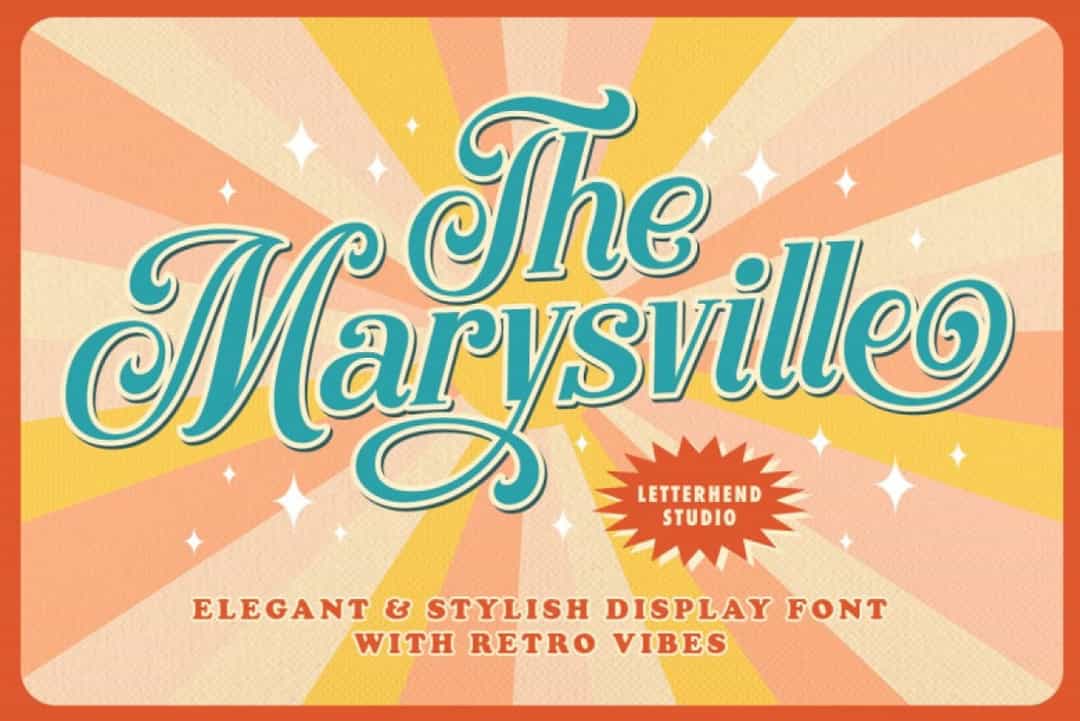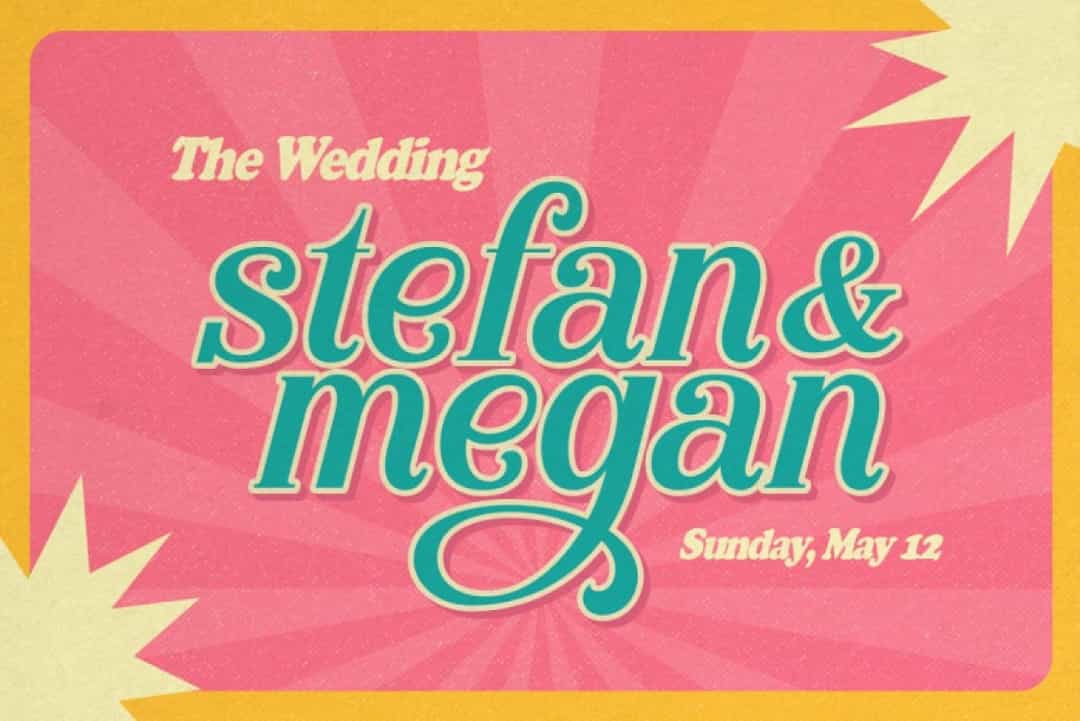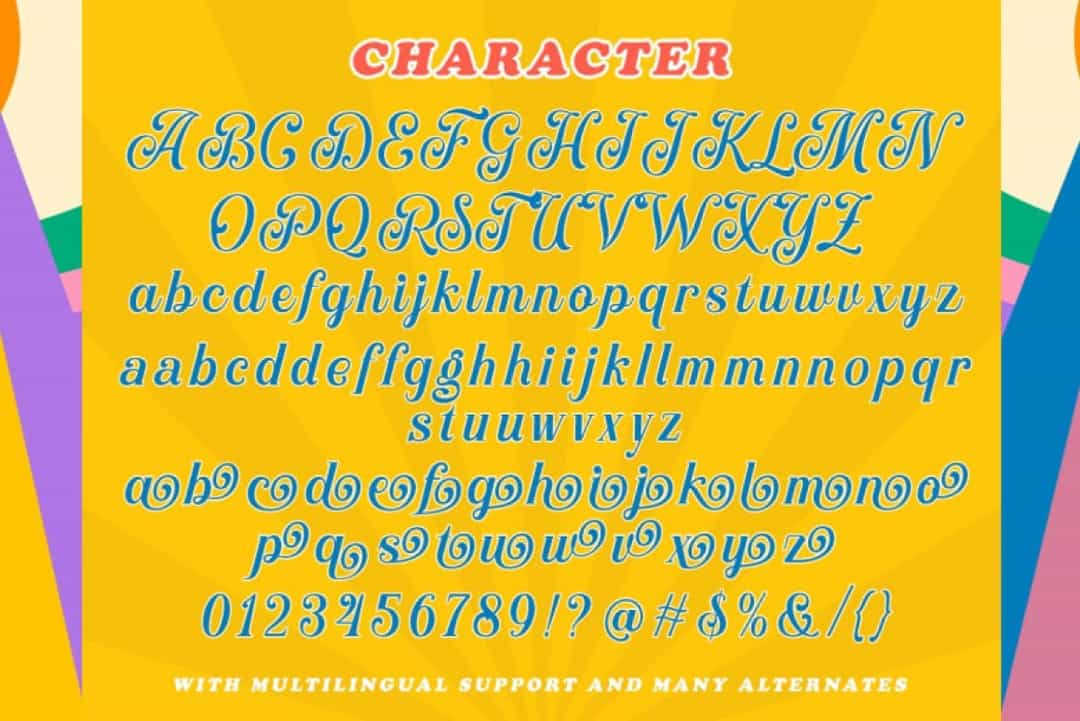
Discover The Marysville Font, part of the Display Retro Script collection—a versatile and unique font perfect for adding a personal touch to your projects. Download it for free and enjoy crafting designs with style, from invitations to social media posts. This font is available exclusively for personal use, giving you the freedom to create without limits. Unlock your creativity with The Marysville Font today!
Marysville font has made its debut! A retro bold script designed to take you back to the 1960s vibe, the Marysville font is tailored for use in logos and various formal formats like labels, invitations, logos, magazines or books, greeting or wedding cards packaging, fashion magazines, makeup books, stationery labels and any form of advertisement.